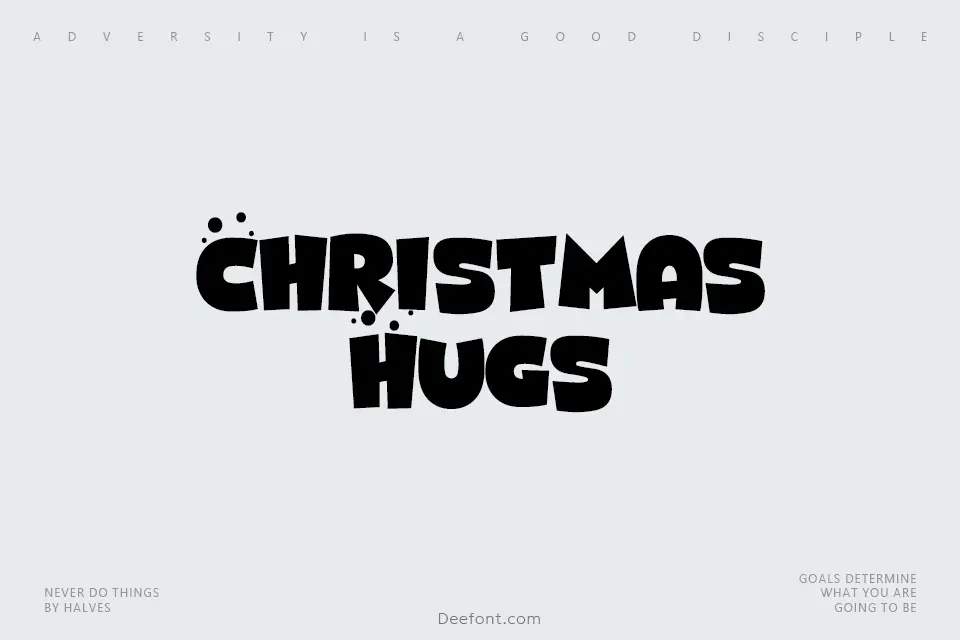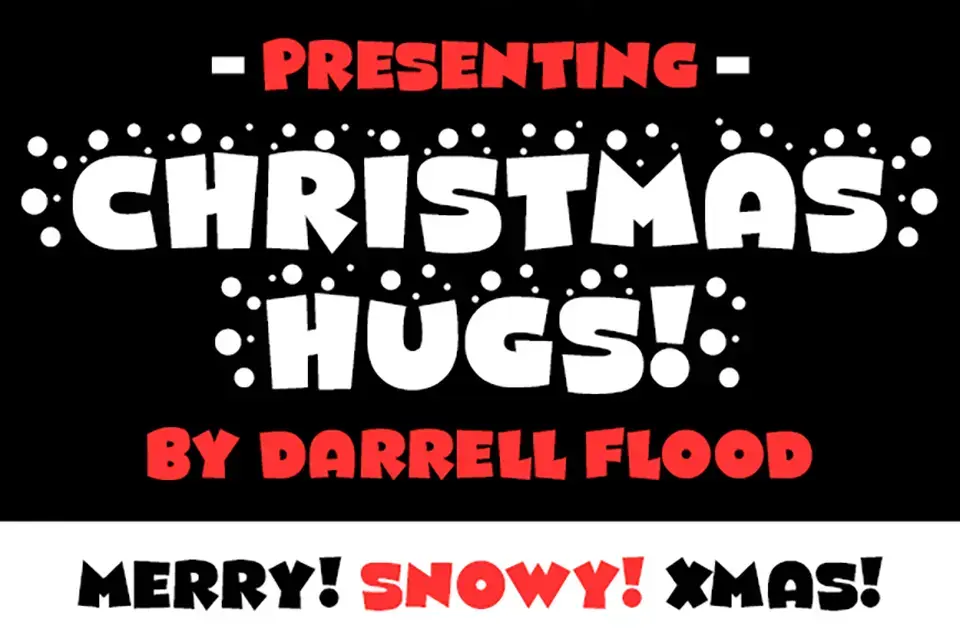
Christmas Hugs Font
Christmas Hugs is a delightful and festive handwritten font designed by Darrell Flood, perfectly capturing the warmth and joy of the holiday season. Its playful curves and bouncy baseline give it a friendly, personal feel, making it an excellent choice for seasonal creative projects. Whether you are designing Christmas cards, gift tags, party invitations, or holiday-themed social media graphics, this font adds a cozy and welcoming touch to your typography. The typeface includes a standard set of characters along with an italic variation, allowing for versatile design combinations. While Christmas Hugs is free for personal use, it offers a professional polish that can elevate commercial holiday merchandise with the appropriate license. Its smooth, legible style ensures your message is delivered with cheer and affection, making it a favorite for designers looking to spread holiday spirit.